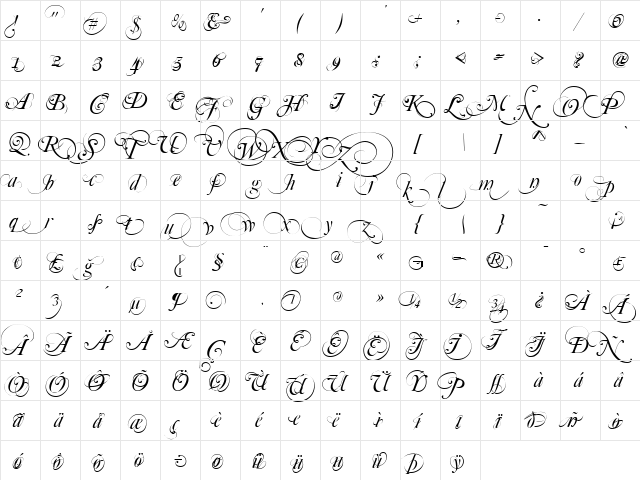
Mutlu Ornamental
| Style | Ornamental |
Design Context for Mutlu Typeface
Mutlu is built around its visual character rather than neutral utility — its distinctive forms are designed to make an impression at display sizes.
Font Pairing: Pair with a clean neutral sans-serif for body copy to let Mutlu's character lead without overwhelming the composition.
Pro Tip: Use Mutlu exclusively at display sizes — it was designed to be seen, not read at length. Let a neutral companion handle body copy.